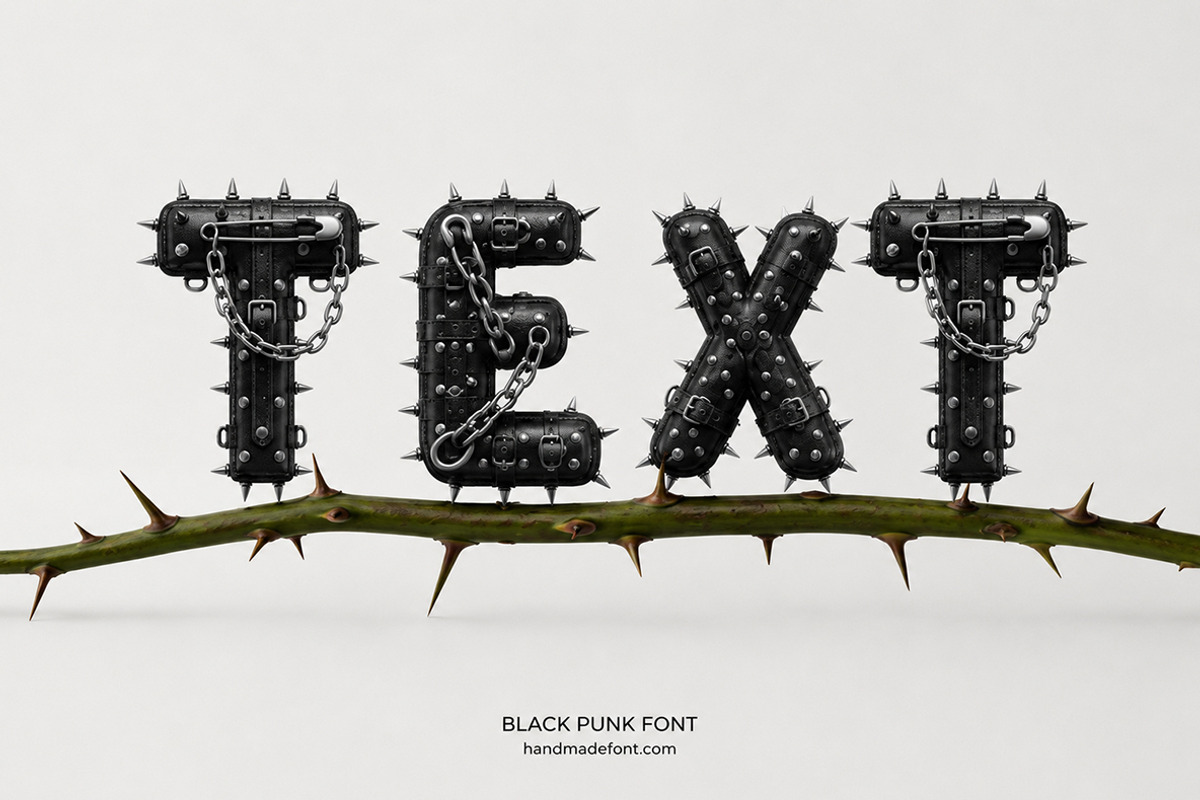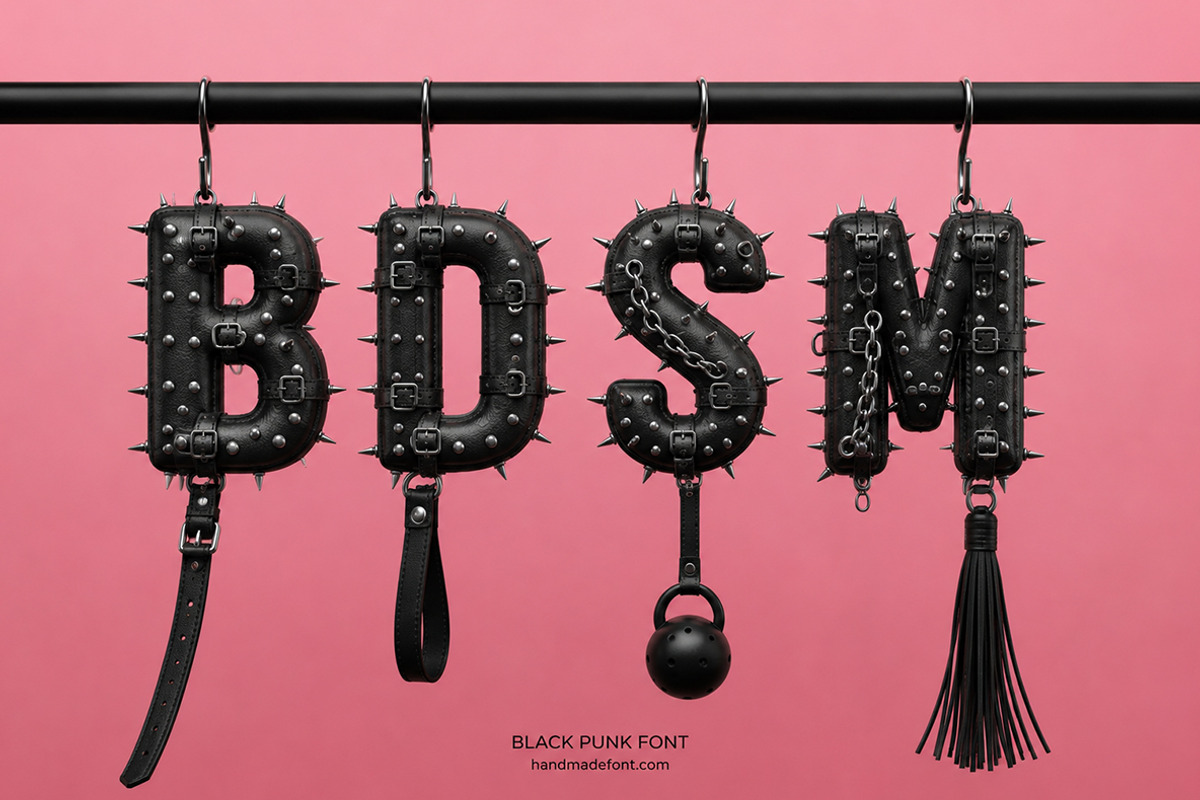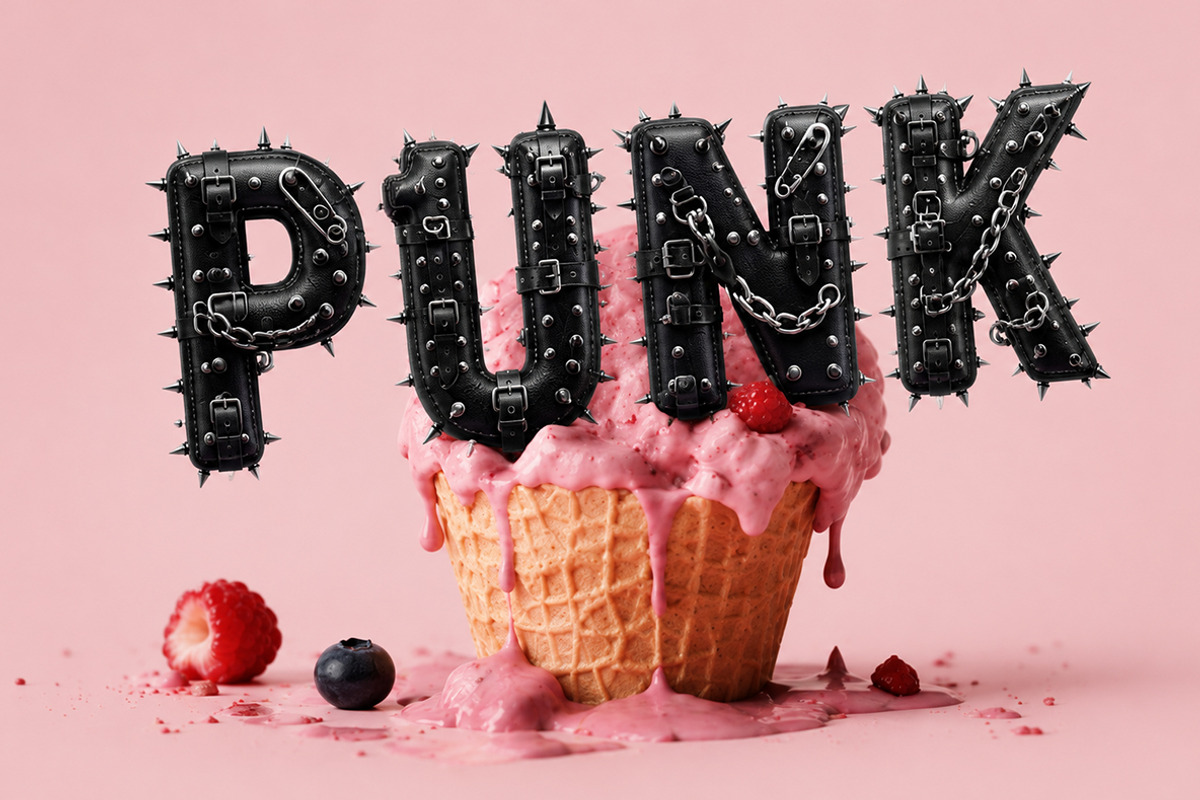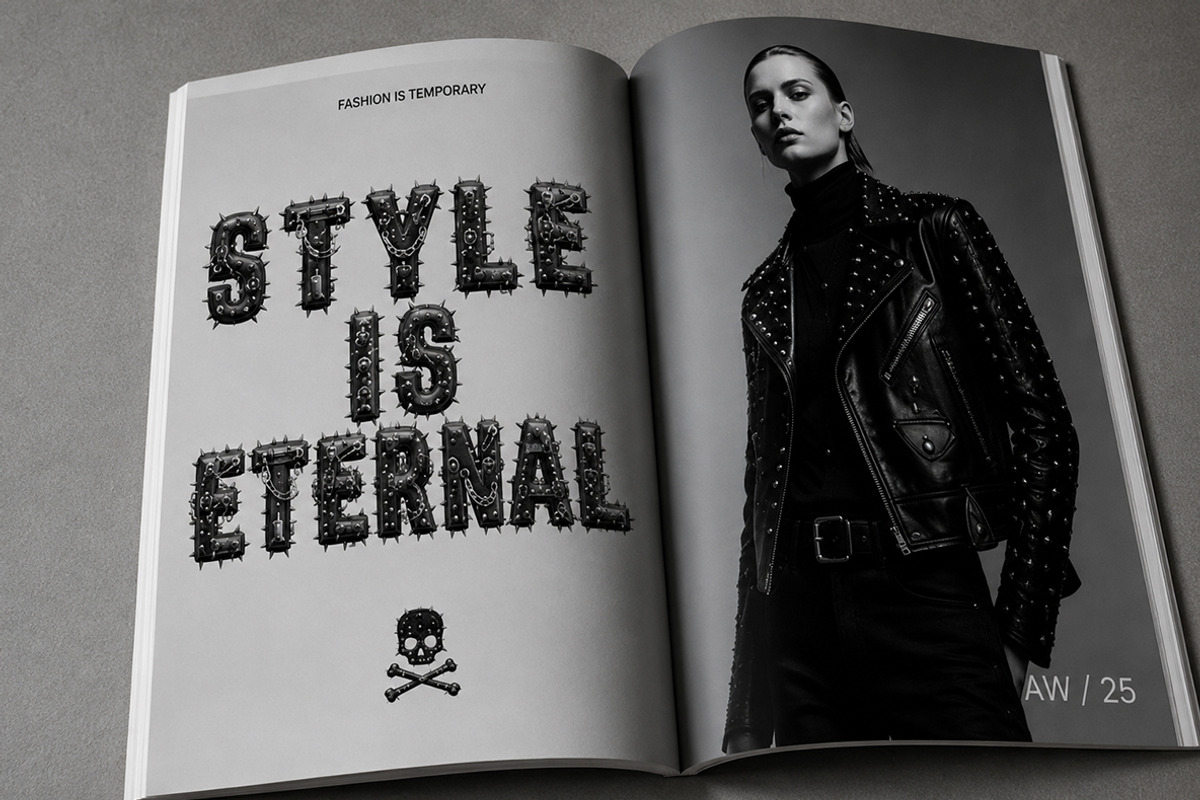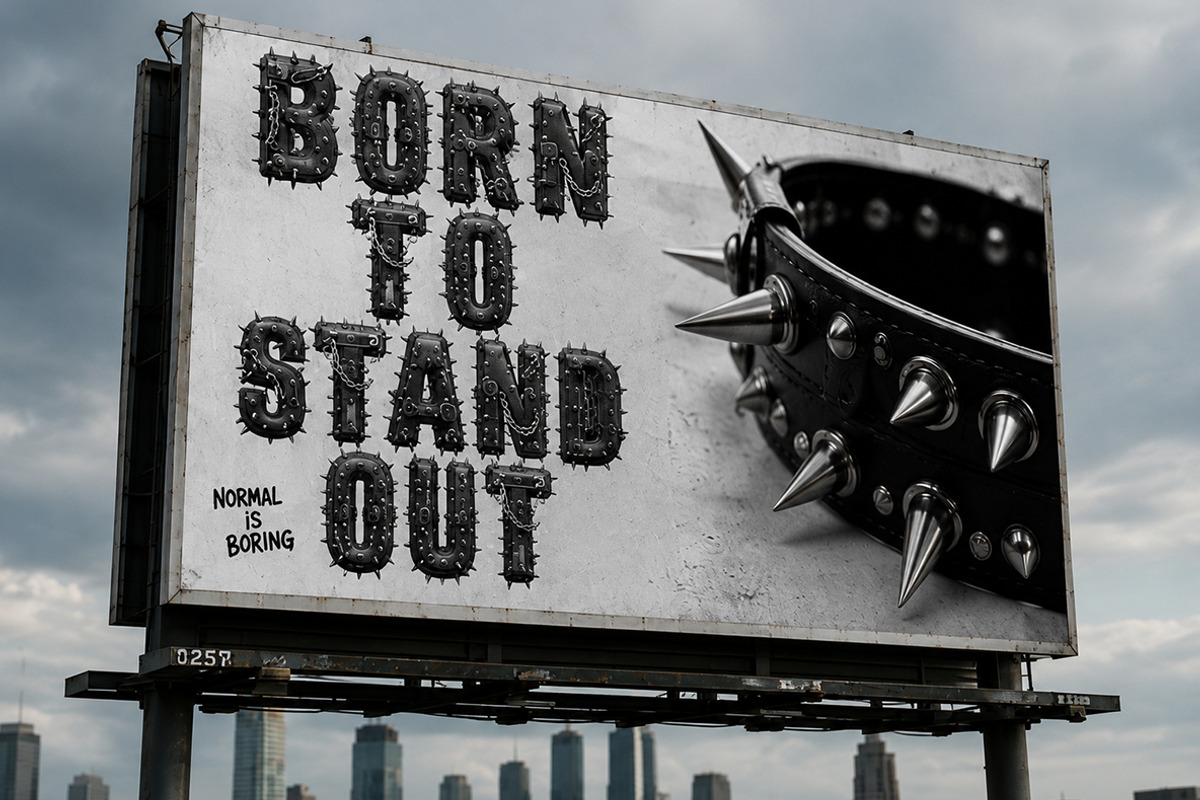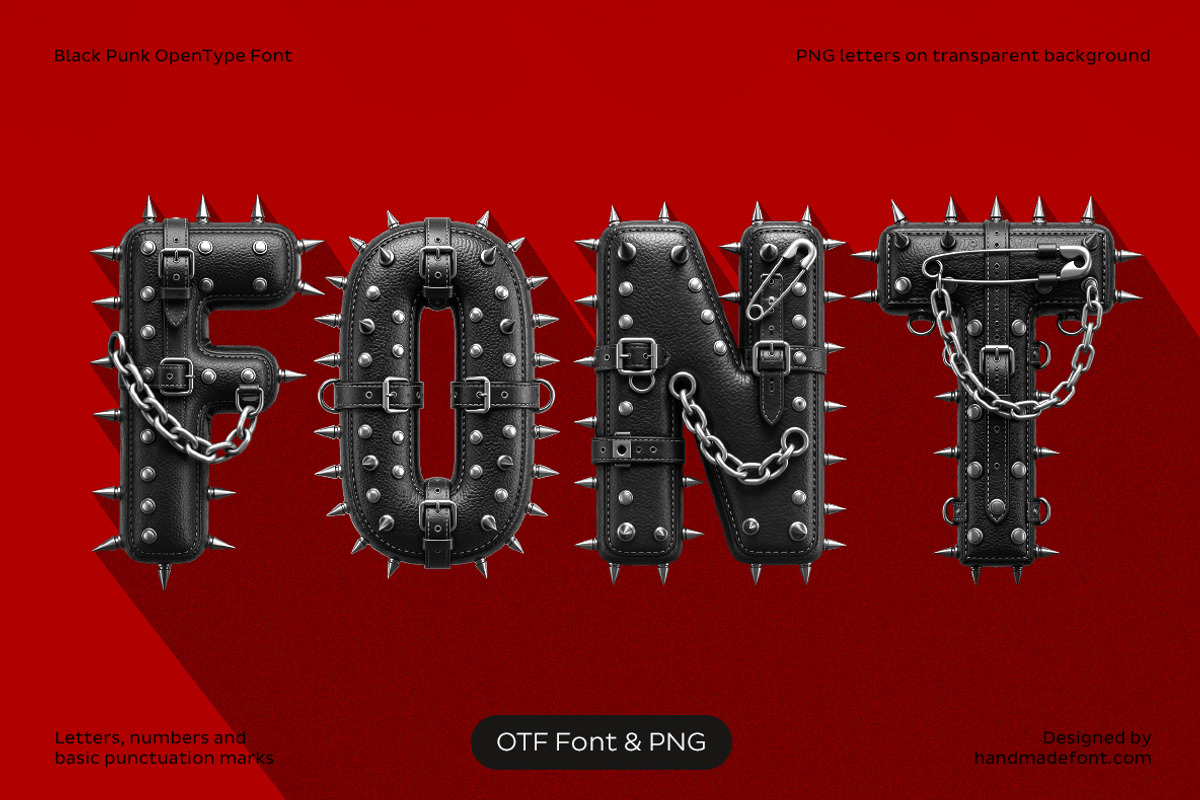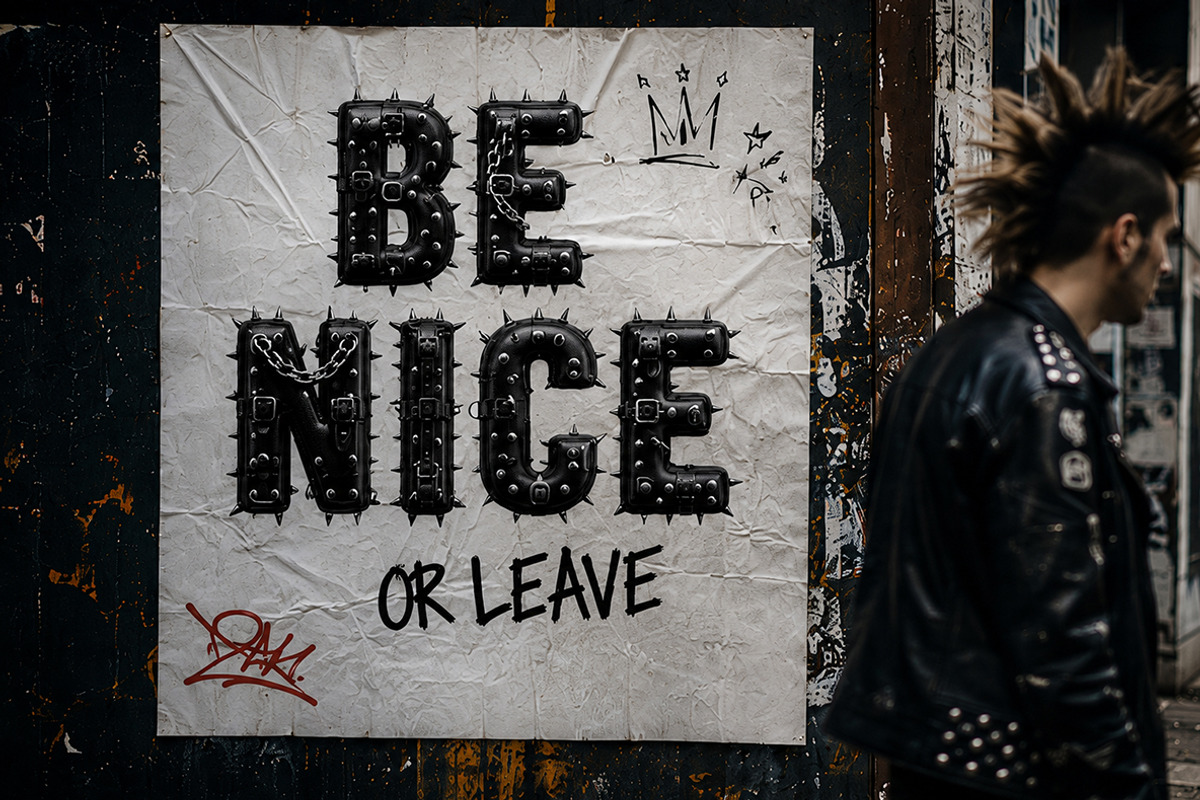
Black Punk Font
Black Punk Font is a bold and rebellious typeface inspired by punk fashion, leather accessories, metal studs, chains, and underground street culture. Every character is crafted with rich three-dimensional details, creating a dramatic and premium visual impact for posters, album covers, branding, apparel, logos, packaging, gaming, and social media graphics. The package includes a high-quality OTF font for effortless typing and a complete set of individual PNG letters with transparent backgrounds, giving you maximum creative flexibility for custom layouts and compositions. Black Punk Font is perfect for designers seeking an aggressive, stylish, modern, and unforgettable typographic statement.
Letters : A B C D E F G H I J K L M N O P Q R S T U V W X Y Z
Numbers : 0 1 2 3 4 5 6 7 8 9
Others : ! ? - . ' $ € % & #